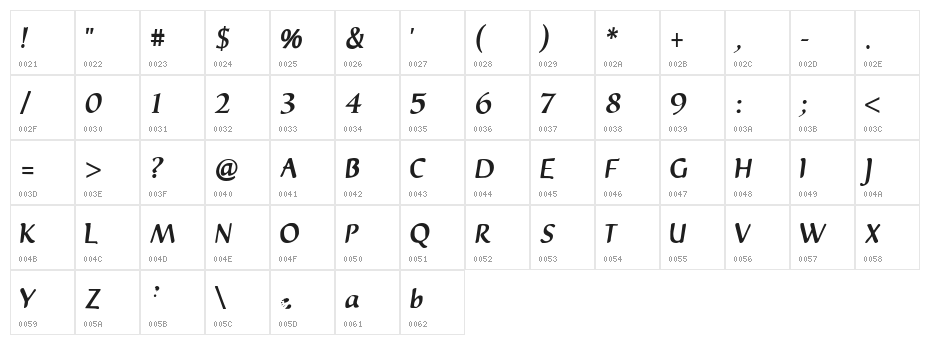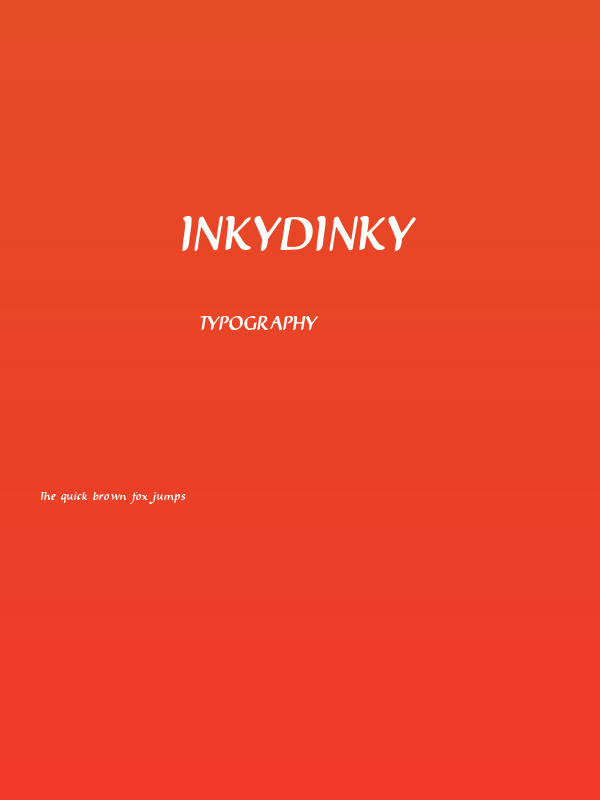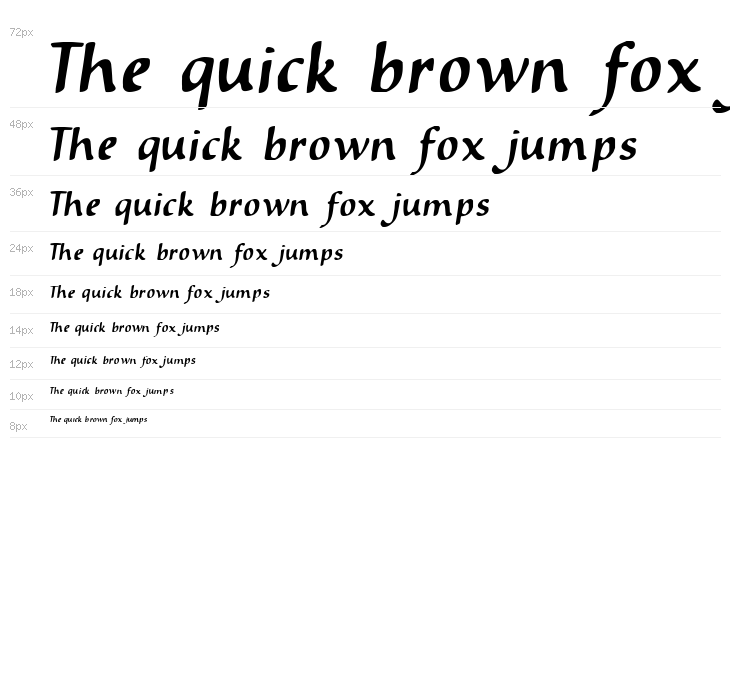
InkyDinky Font
InkyDinky Description
This font features a dynamic and fluid script style, characterized by its elegant curves and slightly slanted letters. The uppercase letters are bold and prominent, while the lowercase letters maintain a consistent flow with a touch of whimsy. The numerals are distinct and easy to read, complementing the overall style. Special characters are crafted with the same attention to detail, ensuring a cohesive look across all glyphs. The font's design is both artistic and functional, making it suitable for a variety of creative applications.
| Proposed Projects | Ideal for invitations, greeting cards, branding, and artistic projects that require a personal touch. |